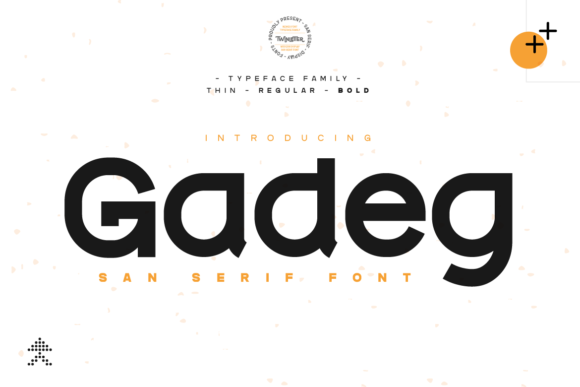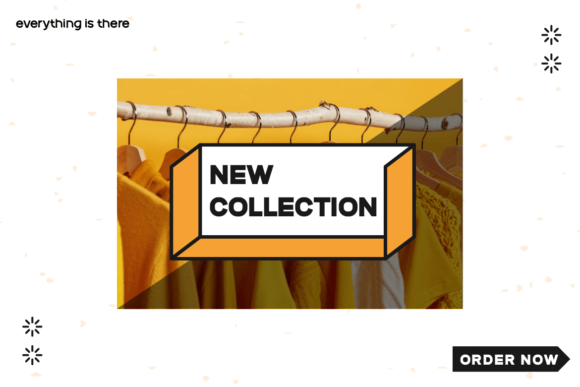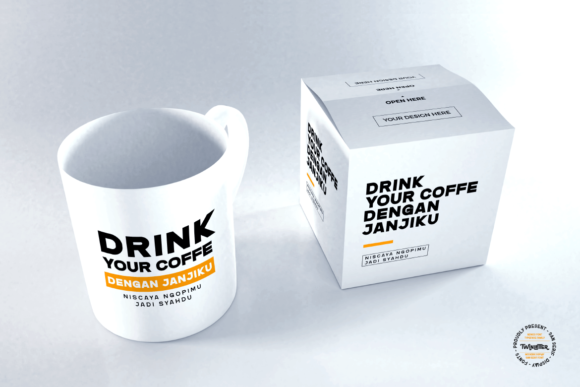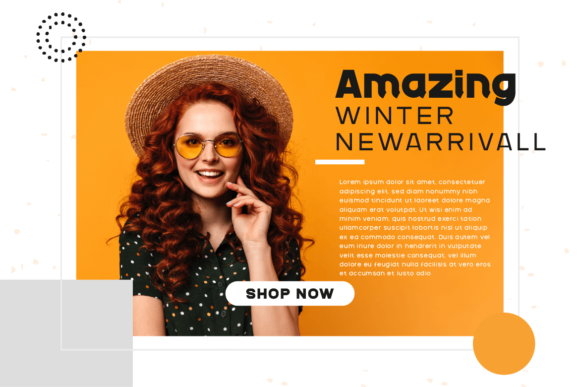
Gadeg Font: A Cool & Bold Sans Serif for Modern Logo Design
About the Gadeg Font
Let us introduce you to Gadeg Font, where timeless design meets modern craftsmanship. Gadeg is a cool and bold display font. This font is ideal for writing web designs, business cards, or pretty much anything else that requires a trendy touch.
Gadeg’s bold, impactful design shines in headlines, logos, and short, impactful statements. It’s perfect for posters, packaging where a strong visual presence is needed, and branding for businesses aiming for a modern and assertive image. Avoid using Gadeg for body text or lengthy paragraphs; its weight and character are better suited for concise messaging.
This font’s energetic personality pairs well with clean sans-serif fonts like Open Sans or Lato for a balanced contrast. For a more luxurious feel, consider pairing it with a subtle serif like Merriweather or Playfair Display. Geometric sans-serifs, such as Montserrat, provide a modern and consistent feel.
Gadeg projects a confident, contemporary, and slightly rebellious energy. Brands targeting a younger demographic or those wishing to convey strength and innovation will find it particularly effective.